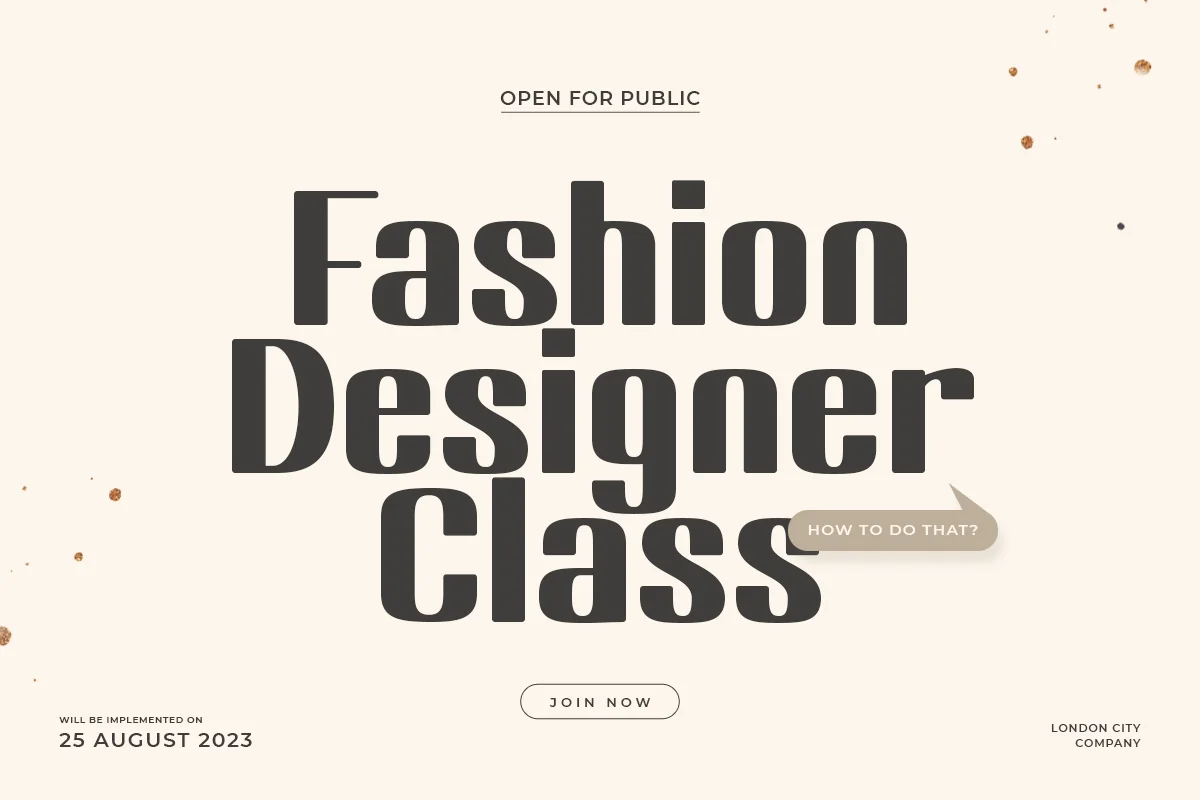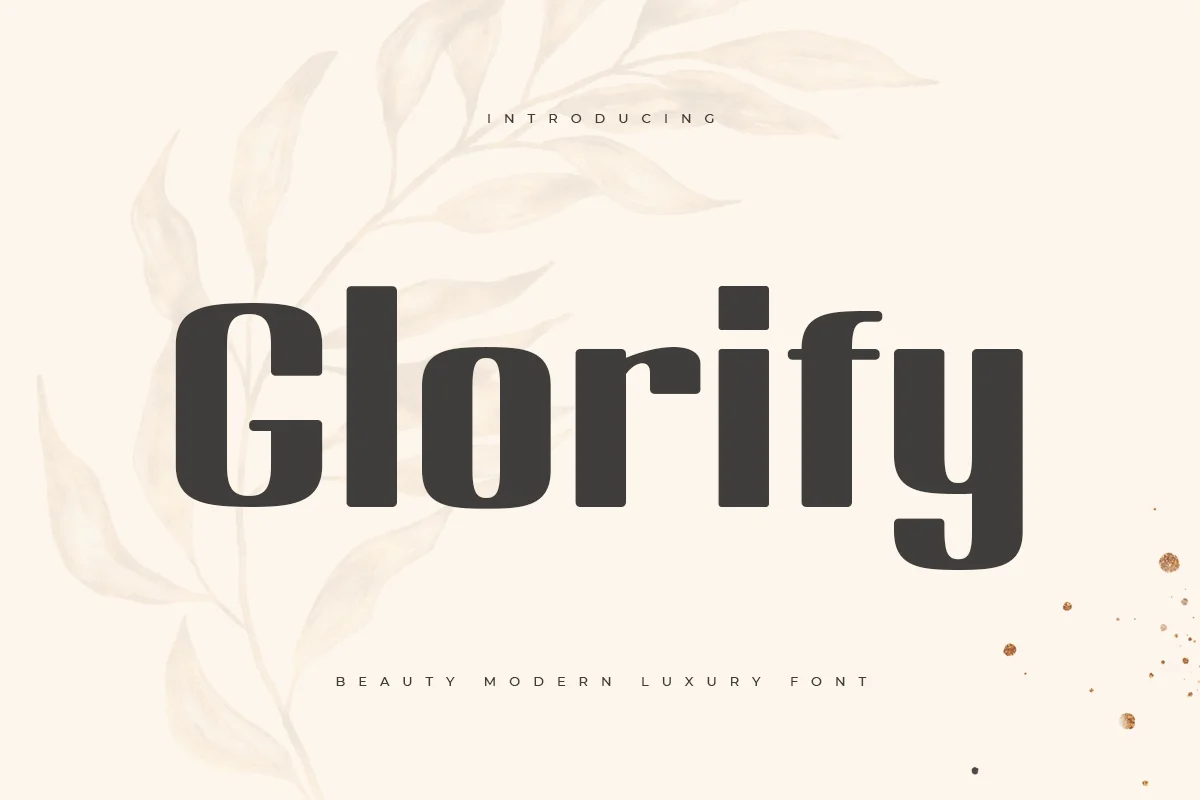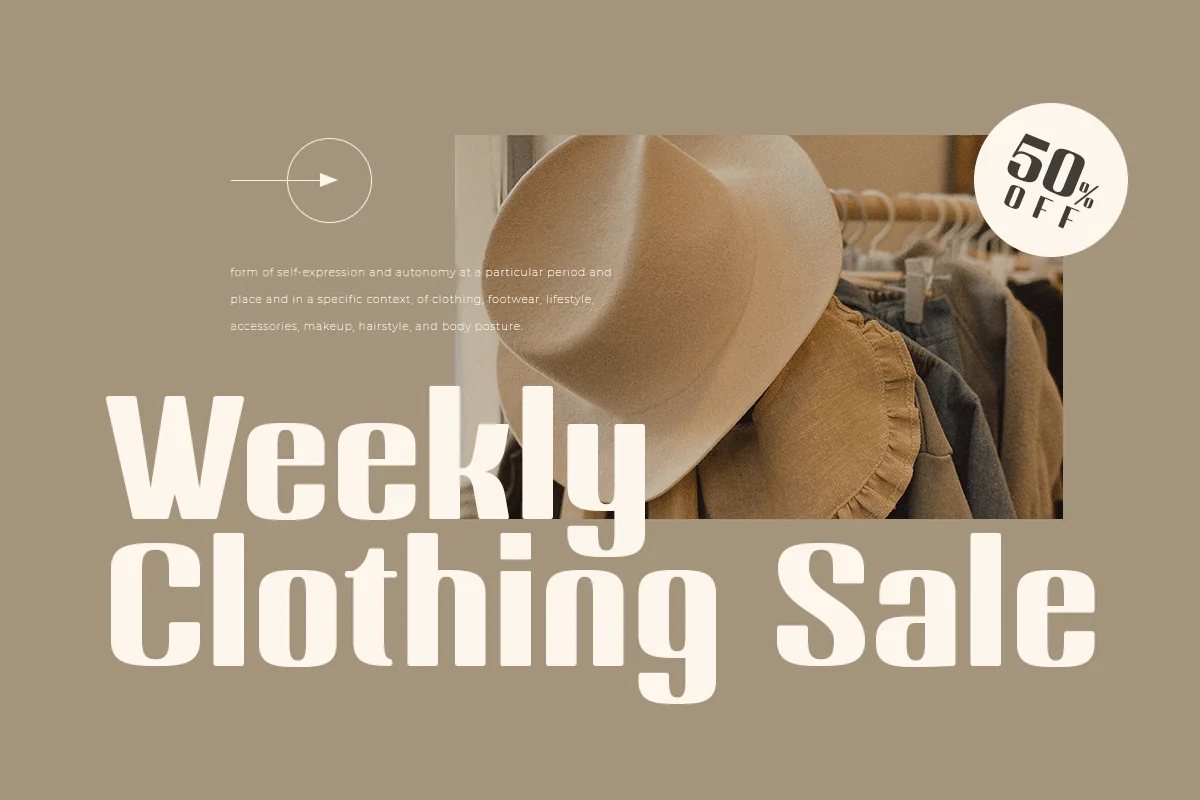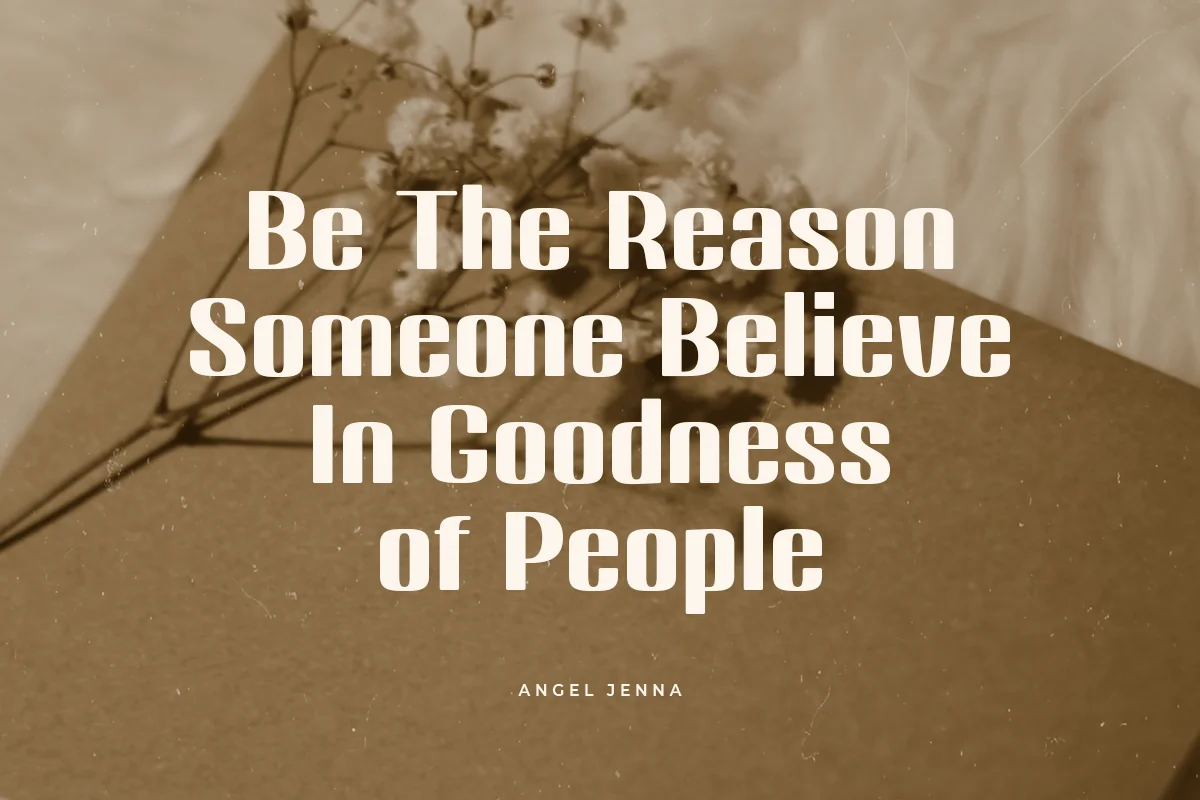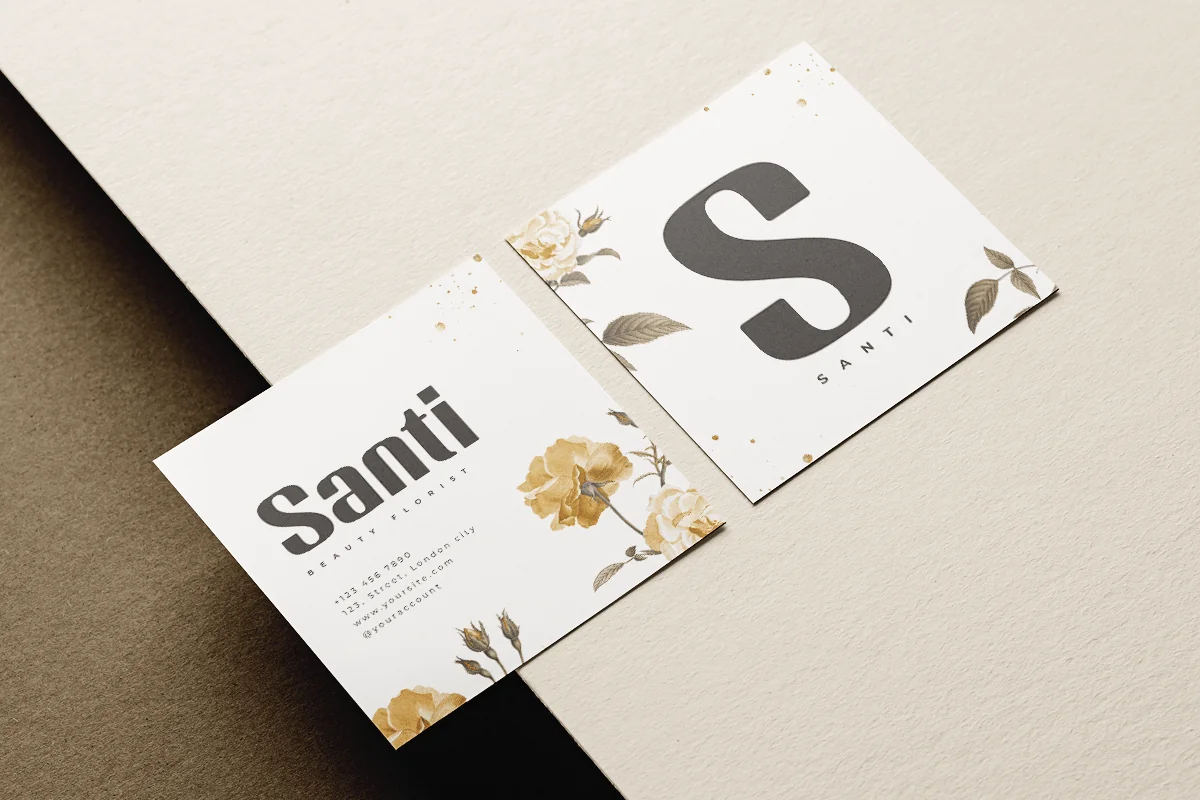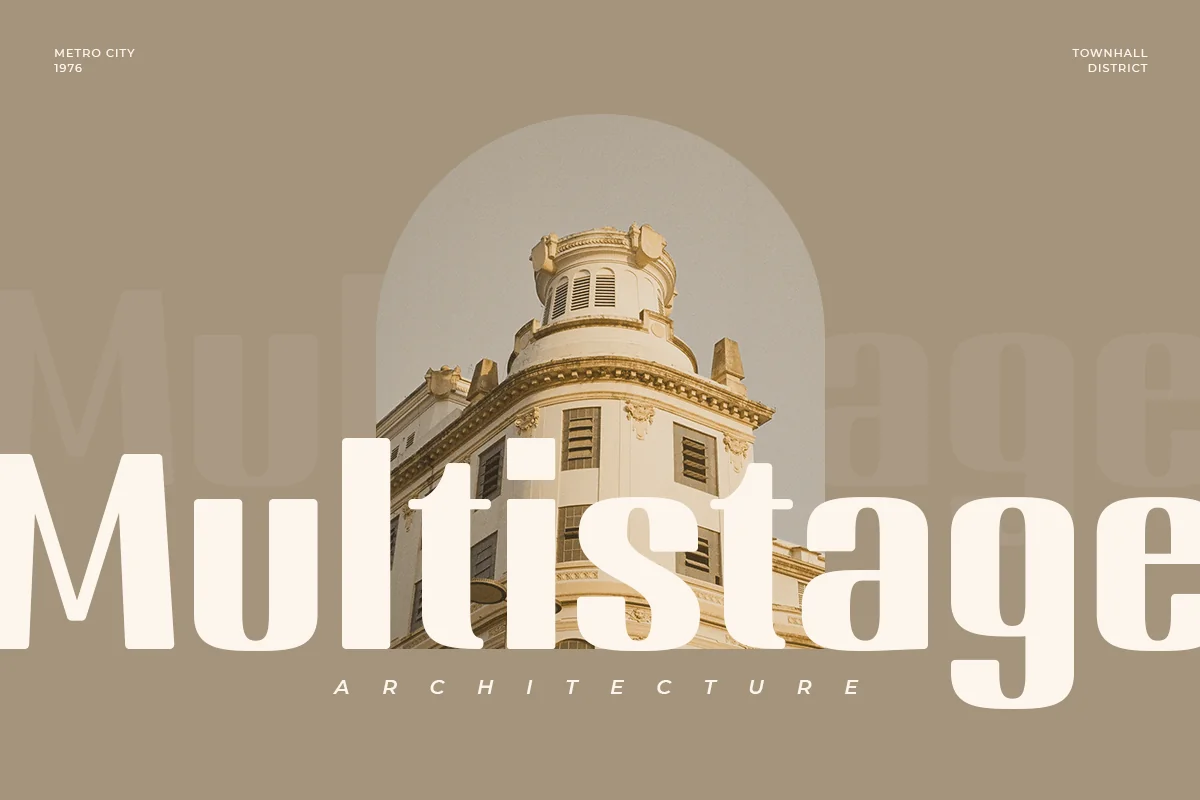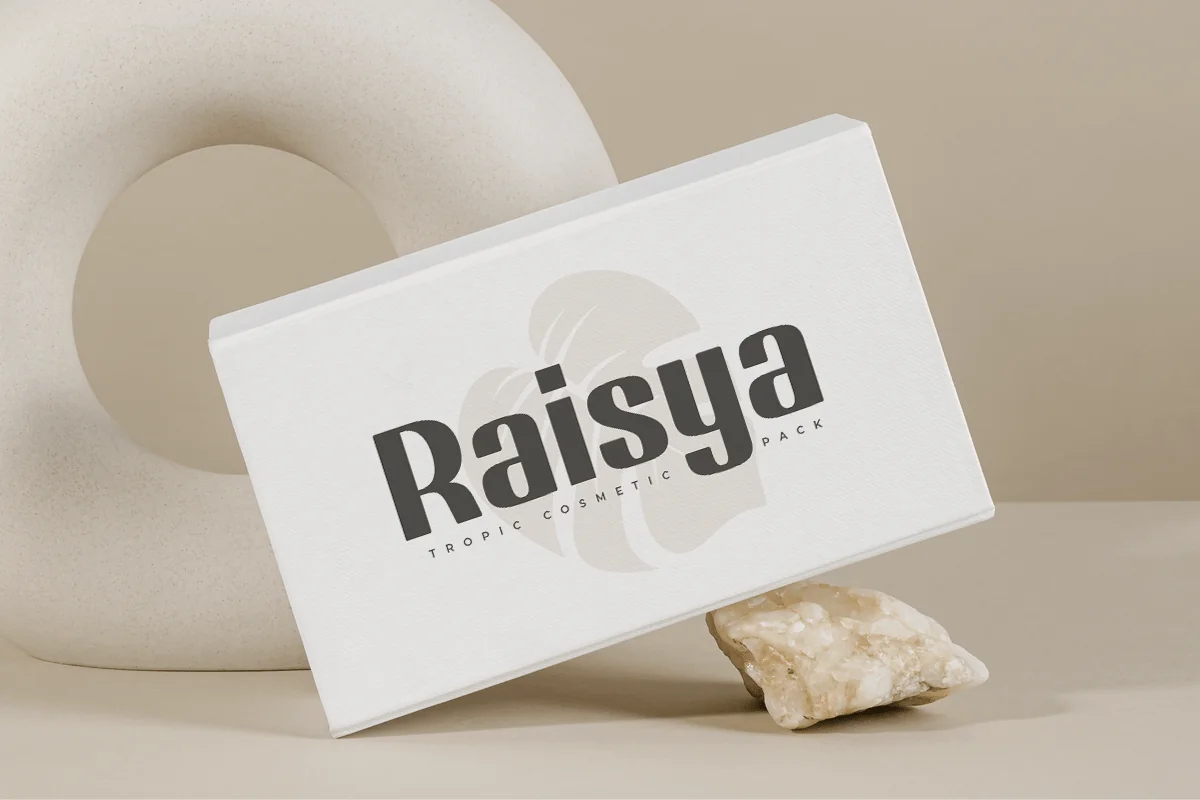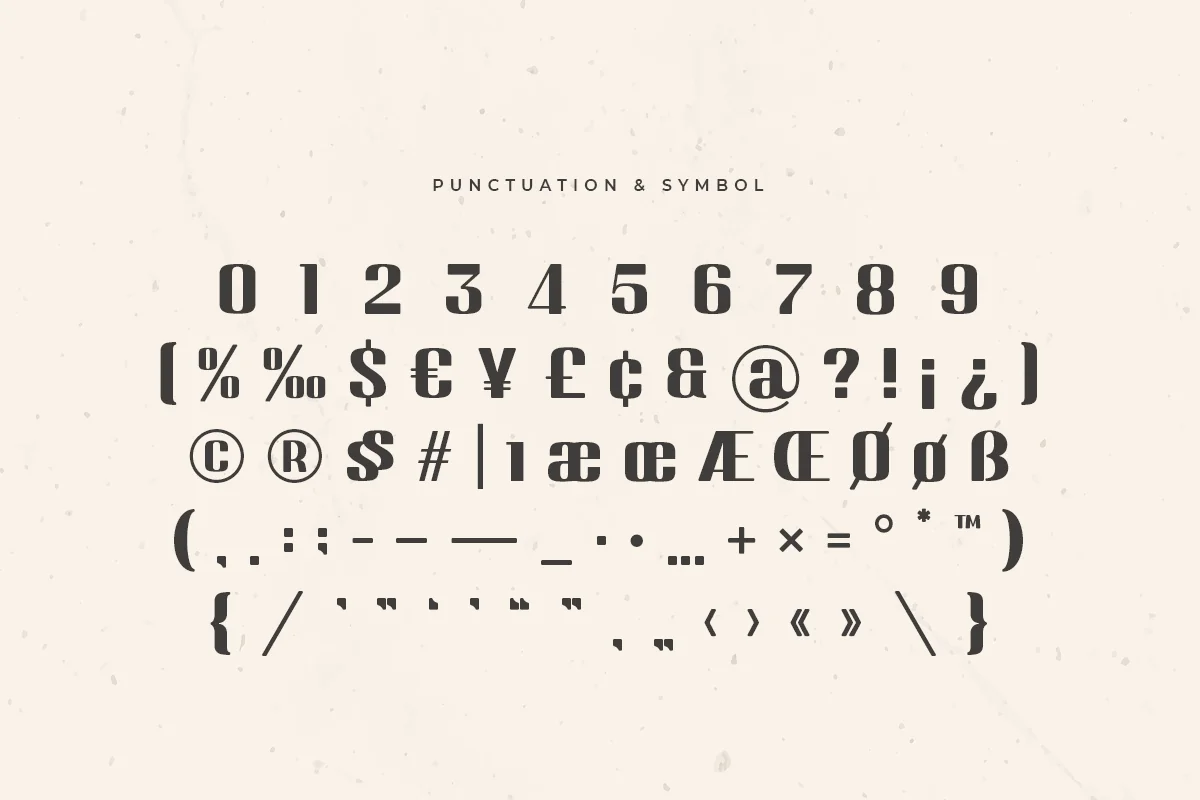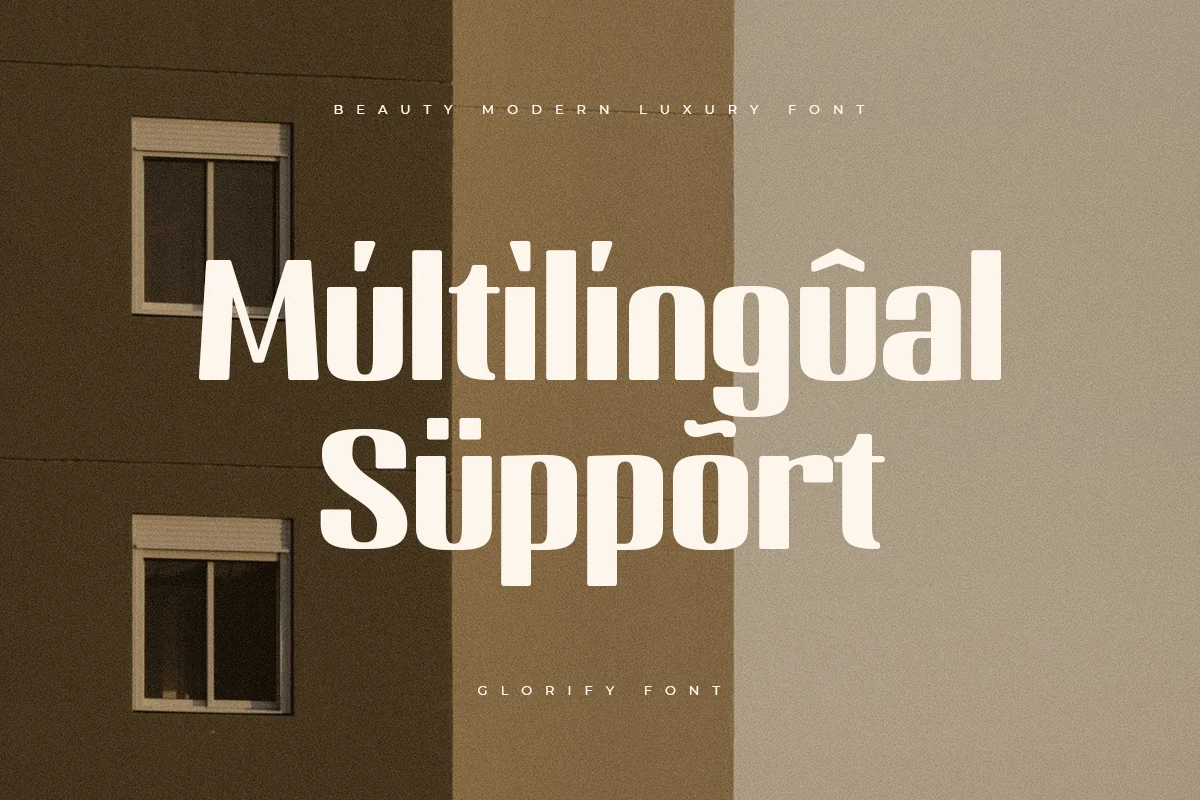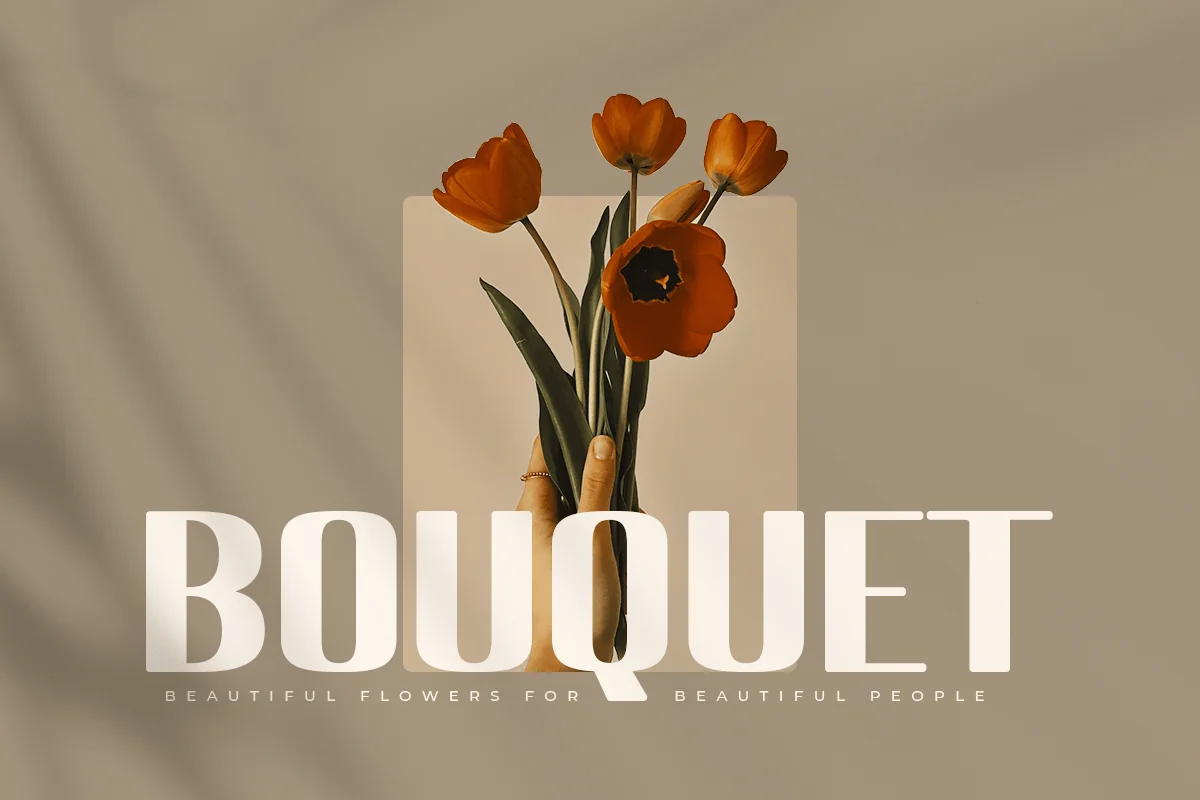
Glorify – Beauty Modern Luxury Font
Glorify is Modern Elegant Luxury Sans Serif Font is a well-balanced contemporary font with a fancy, unique, and versatile Luxury Sans serif, font that you can combine to get any variations and unique shapes easily just in seconds with choose alternates of them. It is a sans serif display font with moderate contrast that perfect for branding projects, logo, wedding designs, social media posts, advertisements, product packaging, product designs, label, photography, watermark, invitation, stationery, and any projects, it makes with a high level of legibility.
- Character set A-Z
- Accented Characters (West Europe)